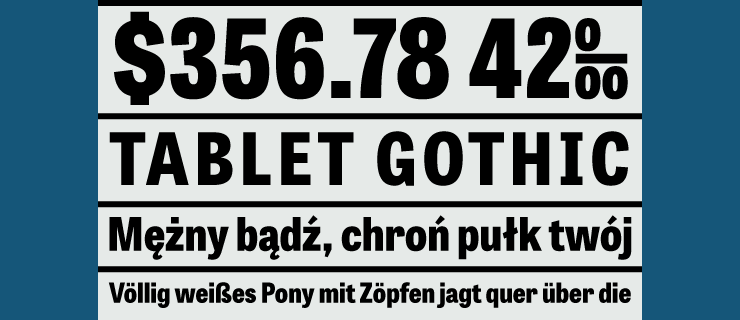
Tablet Gothic, SemiCond XB
DateMarch 2012 | The new type family by Burian and Scaglione, Tablet Gothic was originally engineered as a titling type family. It is meant to help designers working on publications that require output as hard copies and a variety of digital platforms at the same time. As such, it is a grotesque sans serif that looks to the future of publishing with a clear understanding of its history. Tablet Gothic delivers the sturdy, straightforward and clean appearance expected from a grotesque, but it allows itself a good measure of personality to make it stand out on the page. We are giving away Tablet Gothic SemiCondensed Extrabold for free. After selecting Tablet Gothic SemiCondensed Extrabold in our webshop, simply add this code ba9daa9d in the checkout and download the font. | |